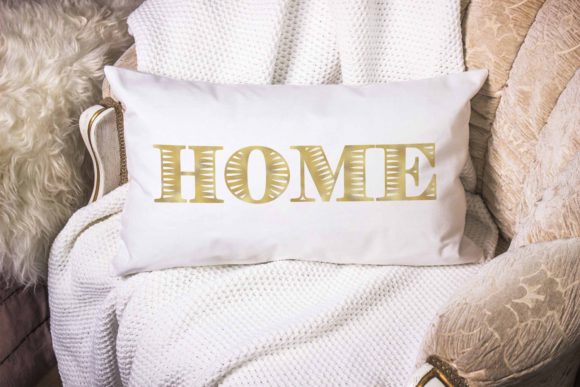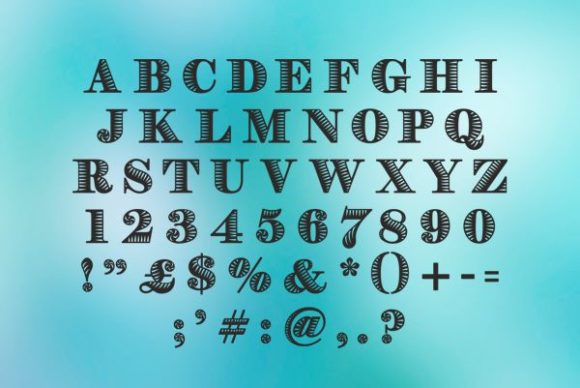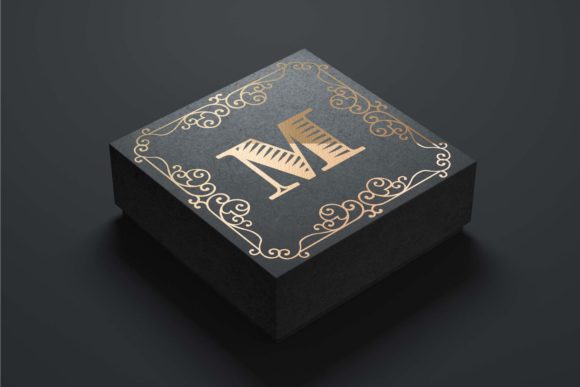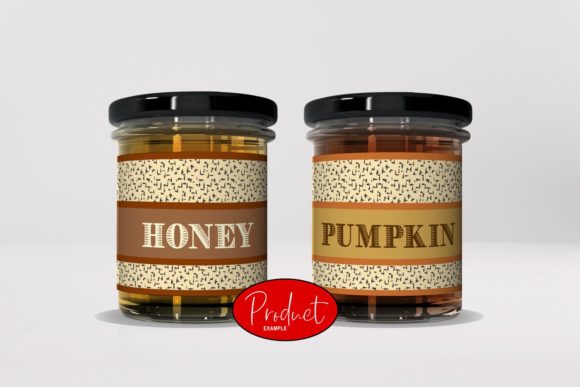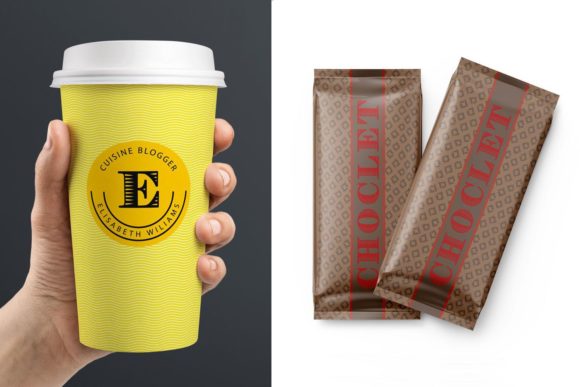
Cytar Font: Elevate Your Designs with a Personalized Touch
In the world of design, fonts play a crucial role in conveying the message and aesthetic of a project. Among the numerous fonts available, Cytar stands out as a unique and versatile uppercase font, carefully crafted to add a personalized touch to various designs. In this article, we’ll explore the features and benefits of Cytar, and how it can be used to elevate your design projects.
What is Cytar Font?
Cytar is a thoughtfully designed uppercase font, created to cater to the needs of designers and crafters seeking a distinctive and stylish look. Its carefully crafted letters exude a sense of sophistication and elegance, making it suitable for a wide range of design projects. Whether you’re working on a logo, branding materials, or digital content, Cytar is an excellent choice to add a personalized touch.
Key Features of Cytar Font
- Uppercase Excellence: Cytar is an all-uppercase font, ensuring that your designs stand out with a bold and confident statement.
- Carefully Crafted: Each letter has been meticulously designed to ensure a harmonious and visually appealing look.
- Versatile: Cytar can be used across various design projects, from logos and branding to digital content and print materials.
- Personalized Appearance: The font’s unique style allows you to add a touch of personality to your designs, setting them apart from the rest.
Benefits of Using Cytar Font
Using Cytar in your design projects offers several benefits, including:
- Enhanced Visual Appeal: Cytar’s elegant and sophisticated design ensures that your projects grab attention and leave a lasting impression.
- Increased Brand Identity: By using a unique font like Cytar, you can create a distinctive brand identity that sets you apart from competitors.
- Flexibility: Cytar’s versatility allows you to use it across various design projects, making it a valuable addition to your font library.
- Easy to Read: Despite its stylized appearance, Cytar remains easy to read, ensuring that your message is conveyed clearly and effectively.
How to Use Cytar Font in Your Designs
Tips for Getting the Most Out of Cytar
- Pair with Complementary Fonts: Combine Cytar with other fonts to create a harmonious and visually appealing design.
- Experiment with Colors: Try different color schemes to find the perfect match for your design and brand.
- Pay Attention to Spacing: Adjust the spacing between letters and lines to ensure optimal readability and aesthetics.
Cytar is a carefully crafted uppercase font that offers a unique and personalized touch to various design projects. Its versatility, elegance, and sophistication make it an excellent choice for designers and crafters seeking to elevate their designs. By incorporating Cytar into your font library, you’ll be able to create stunning and effective designs that leave a lasting impression.